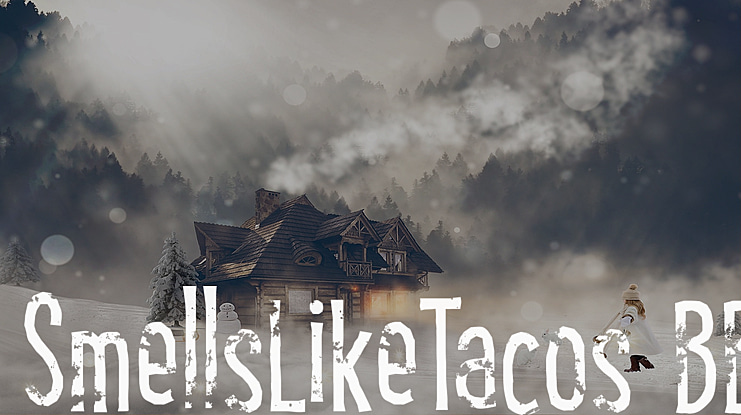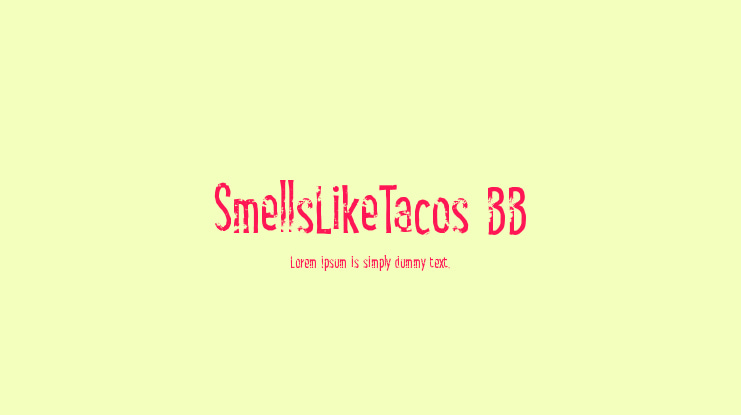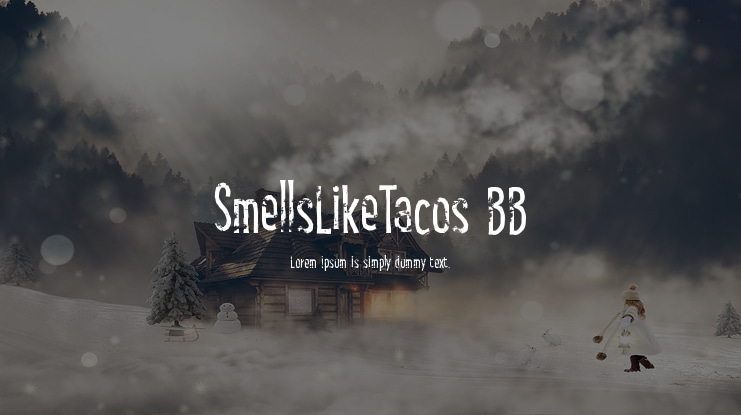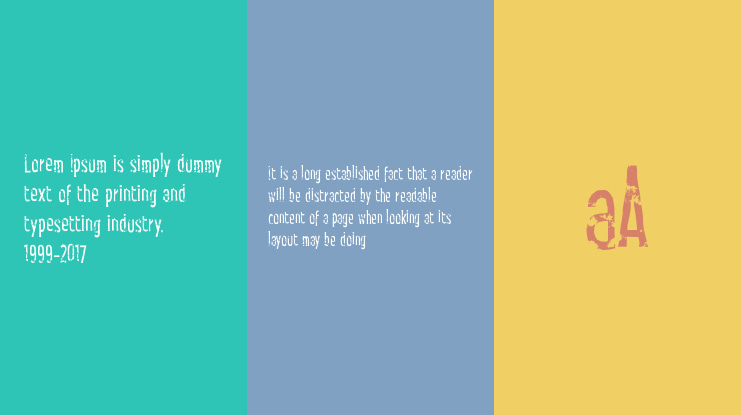
SmellsLikeTacos BB Font
I came up with the idea for this one while sitting in a local Tex-Mex cantina, as I started thinking about what kind of font I'd come up with for a family-oriented taco joint. For the first time ever (I think,) this free font comes with opentype autoligs to swap out duplicate letters and give them different baselines and variant distressing.